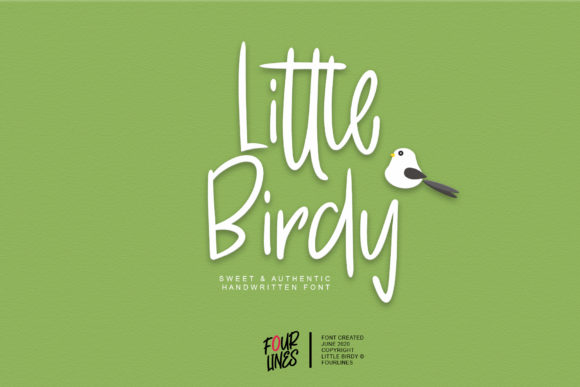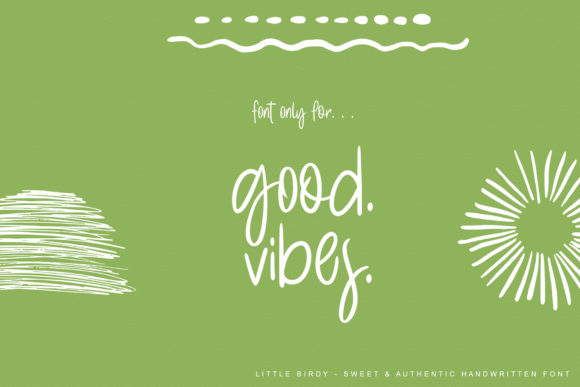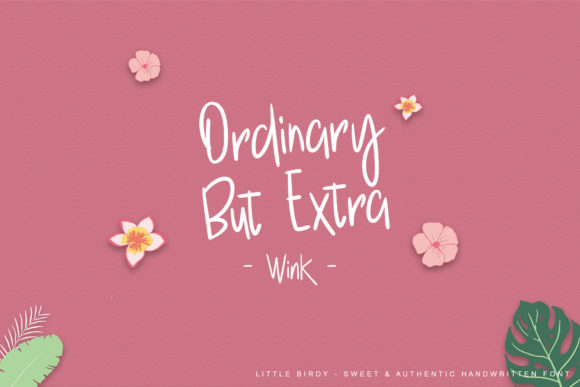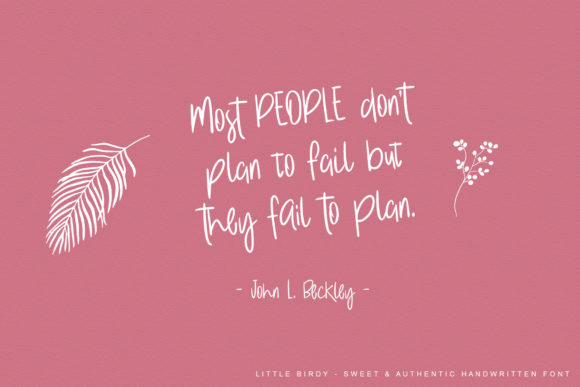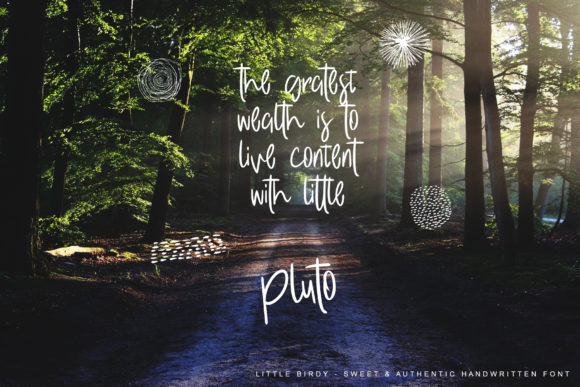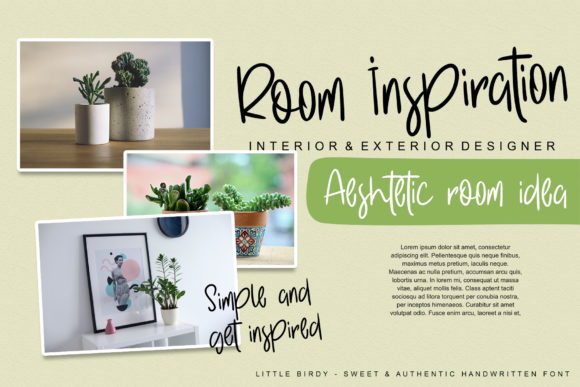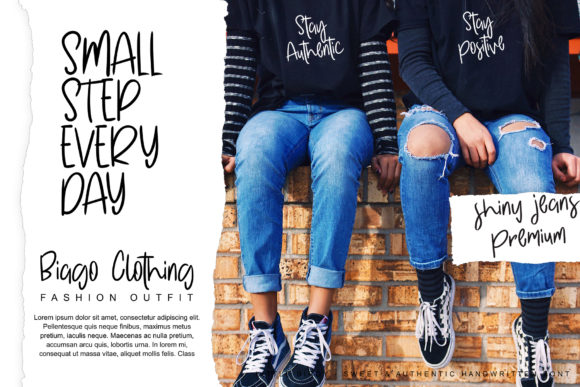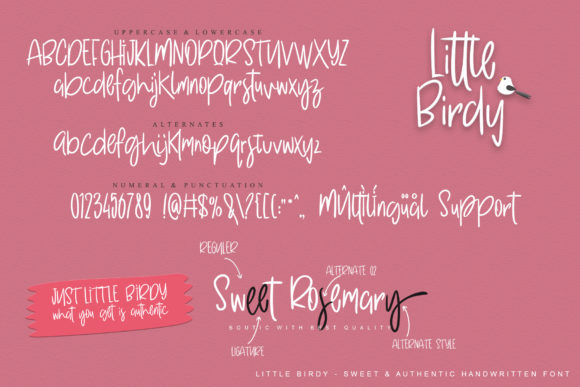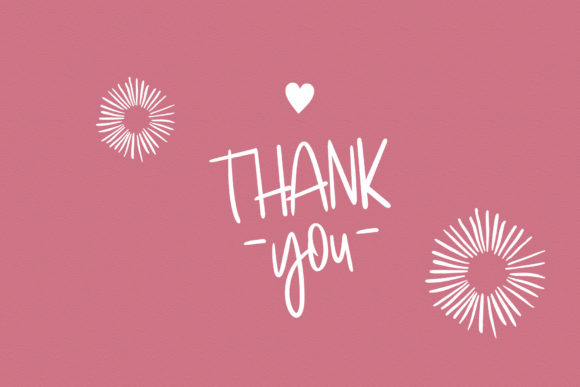
Little Birdy Font
About Little Birdy Font
Little Birdy ia a sweet and delicate handwritten font. This font is PUA encoded which means you can access all of the glyphs and swashes with ease! It features a varying baseline, smooth lines, gorgeous glyphs and stunning alternates. Fall in love with its incredibly versatile style and use it to create spectacular designs!